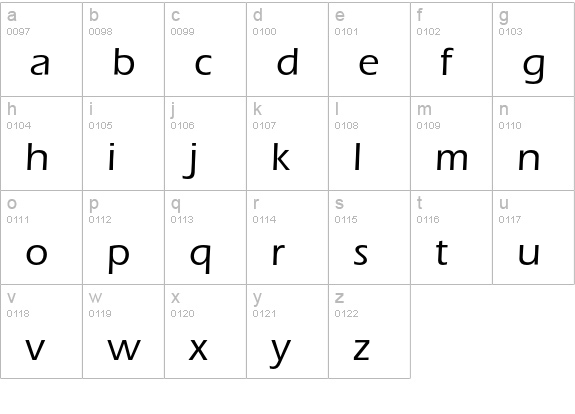
ErasEF-Medium is a balanced, medium-weight variant in the ErasEF typeface family \xE2\x80\x94 well suited to sub-headlines, navigation, and balanced editorial work.
ErasEF-Medium is a versatile and elegant font that combines modernity with a touch of classic sophistication. Its balanced letterforms and clean lines make it perfect for a wide range of design projects, from branding to editorial work. The medium weight of this font strikes a harmonious balance between boldness and subtlety, making it suitable for both headlines and body text. What sets ErasEF-Medium apart is not just its timeless design, but also the fact that it is available for free. Yes, you read that right - this high-quality font can be downloaded at no cost from FontsMarket.com. Whether you're a professional designer looking to enhance your typographic arsenal or a DIY enthusiast working on a personal project, ErasEF-Medium offers a premium look without the premium price tag. Don't miss out on this opportunity to elevate your designs with a font that exudes sophistication and style, all for free.